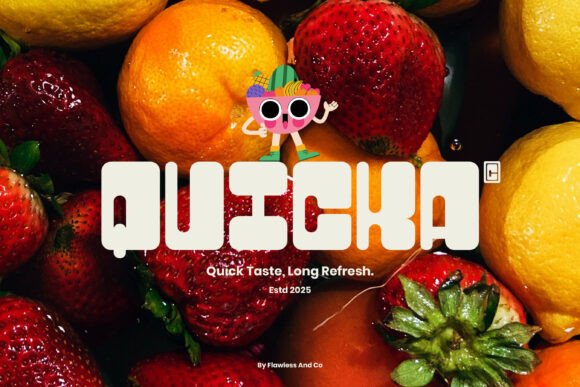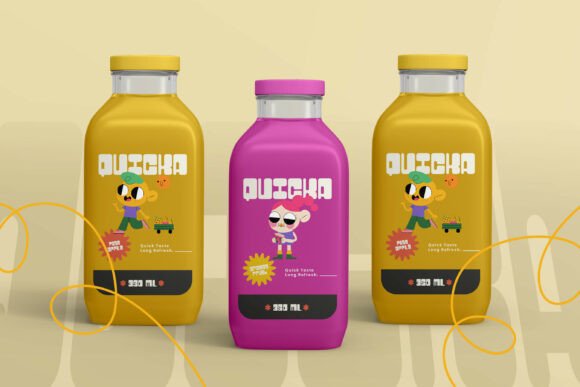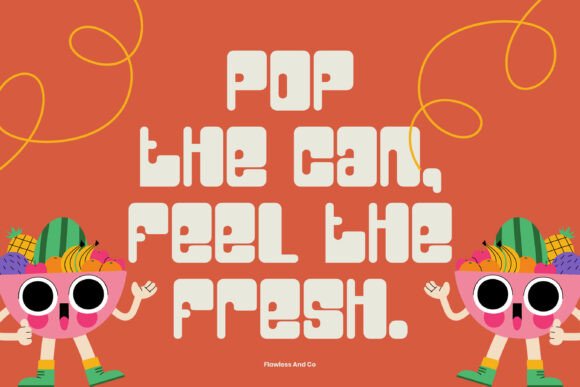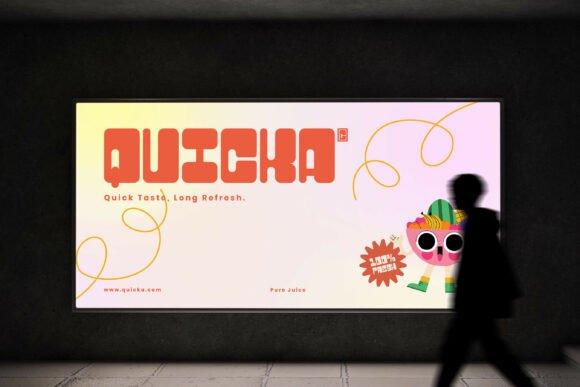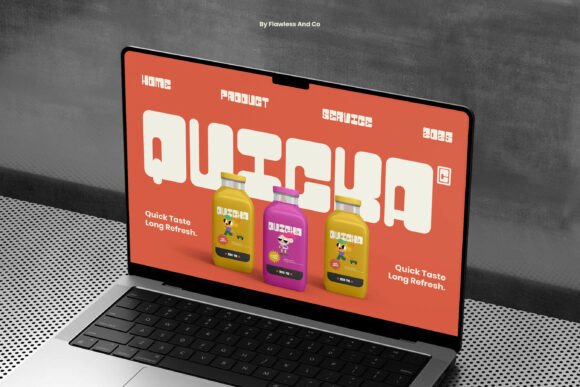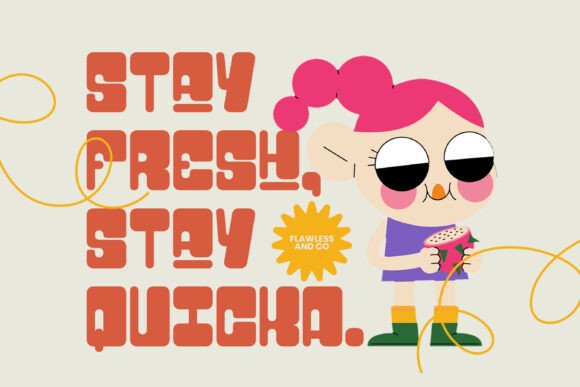
Introduction to Quicka Font
As a designer, you know that the right font can make all the difference in bringing a creative project to life. Imagine you’re working on a new campaign for a trendy coffee shop, and you need a font that screams fun and energy. That’s where Quicka Font comes in – a bold display sans font designed to grab attention instantly.
With its unique blend of chunky letterforms and smooth curves, Quicka Font is the perfect choice for eye-catching headlines, playful branding, and modern logo design. Whether you’re a seasoned pro or just starting out, Quicka Font is a valuable resource that’s sure to elevate your design game. And the best part? It’s available for free download, complete with a transparent background that makes it easy to integrate into your designs.
Key Features of Quicka Font
- High-quality design resource for creative projects: Quicka Font is designed to meet the needs of professional designers and hobbyists alike.
- Unique characteristics: The font’s clean and modern design makes it an excellent choice for a wide range of creative projects, from logos to typography.
- Size: The font family includes multiple weights and styles, ranging from 100 to 900, giving you plenty of options to suit your design needs.
Honest Review: Quicka Font
As a designer, I’m always on the lookout for high-quality design resources that can elevate my creative projects. The Quicka Font caught my eye, and I decided to give it a try.
- Transparent background, making it easy to use with complex designs.
- High-quality font, perfect for headings and titles.
- Great for creative projects that require a modern, clean look.
While the Quicka Font is a great addition to any design resource library, it’s not without its limitations.
- May not be suitable for projects that require a lot of bold or italic text.
- Limited character set, which may not be ideal for long-form text.
Overall, I’m impressed with the Quicka Font. It’s a great design resource for designers who want a high-quality, modern font for their creative projects. While it may have some limitations, it’s definitely worth considering for your next design project.
Introduction to Quicka Font
Quicka Font is a high-quality design resource ideal for creative projects. It offers a unique and modern look, perfect for making a statement in your next design. The font is available for free download, making it an excellent choice for designers on a budget.
Common Use Cases for Quicka Font
Quicka Font is perfect for creative projects, such as logos, graphics, presentations, and documents. Its modern look and high-quality design make it ideal for a wide range of applications, from business to personal projects.